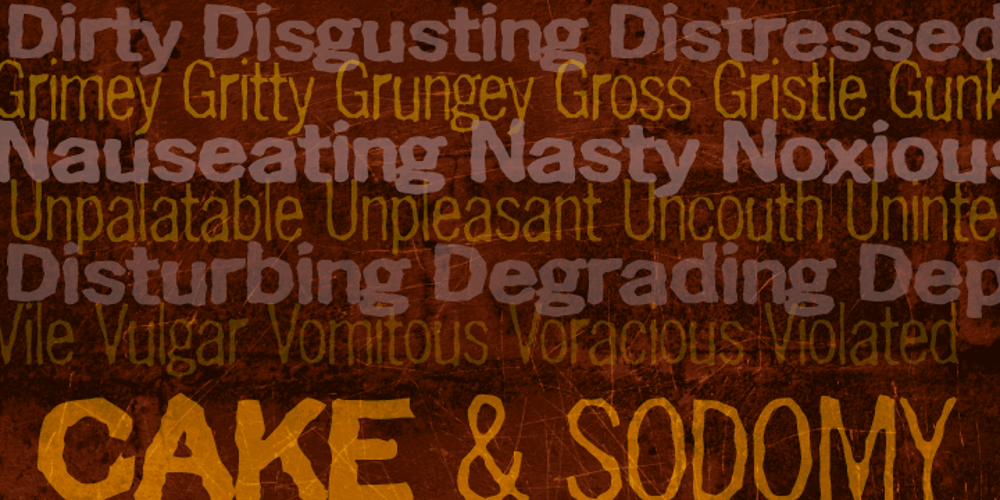
Cake & Sodomy AOE Font Family was designed by Brian J. Bonislawsky and published by Astigmatic. Cake & Sodomy AOE contains 4 styles and family package options. Inspired by the title of a Marilyn Manson song, the Cake & Sodomy typeface was originally released in 1997, and in 2008 received an overhaul in the Opentype Pro version, which now includes extensive language support as well as smallcap capability.